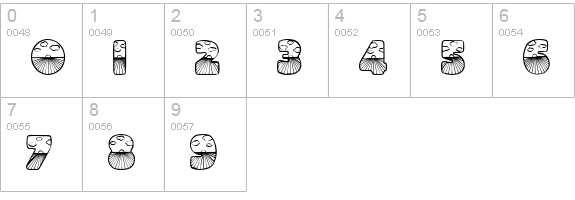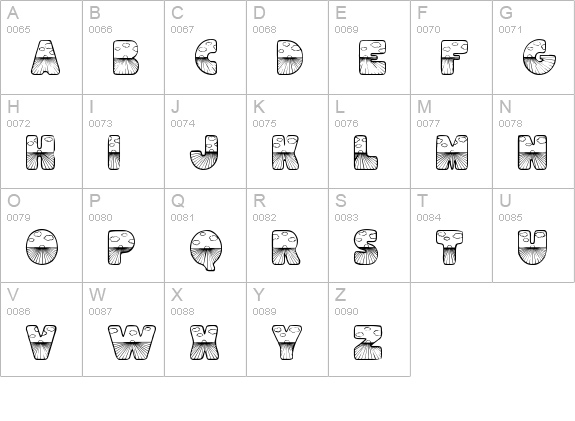
Easter Sunrise font is a breathtaking display typeface that captures the essence of the dawn of Easter morning. Its elegant and intricate letterforms are inspired by the radiant and vibrant colors that accompany the sunrise on this special day. With its graceful curves and delicate details, this font adds a touch of elegance and sophistication to any design project. The Easter Sunrise font is perfect for creating eye-catching headlines, invitations, posters, and branding materials that need to convey a sense of joy, hope, and renewal. Its versatility allows it to be used for both modern and traditional designs, making it a go-to choice for designers of all styles. And the best part? Easter Sunrise font is available for free download at FontsMarket.com. You can easily access this stunning typeface and enhance your creative projects without spending a dime. Whether you're a professional designer or a hobbyist, this font will surely impress and elevate your work. Don't miss out on this incredible opportunity to get your hands on the Easter Sunrise font. Download it now and bring a touch of elegance and positivity to your designs.